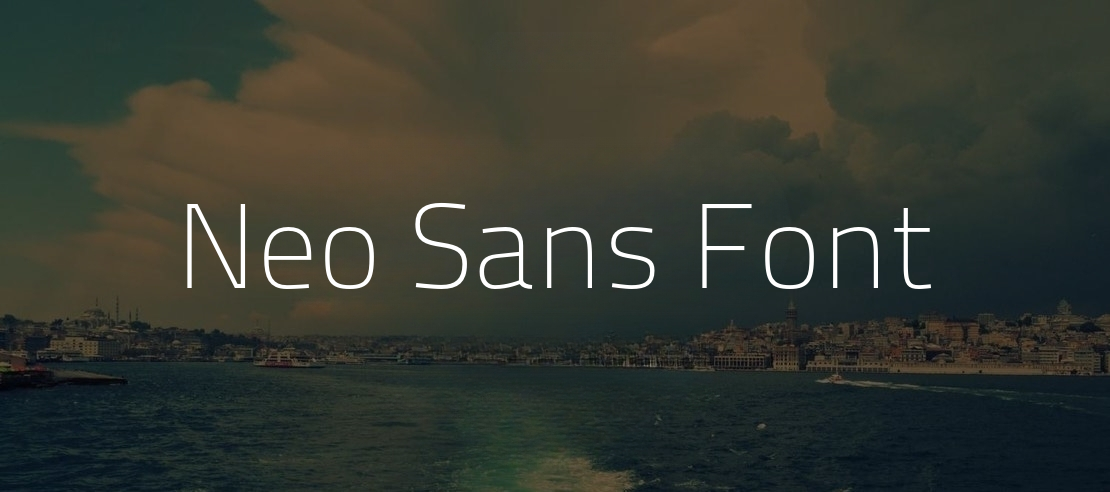
Sebastian Lester was a typeface designer who creates the Neo sans font. This font was released in 2004 by Monotype Corporation. The Neo sans family consists of 12 typefaces. This font supports up to 74 languages.
Sebastian Lester starts work on this font on a customer’s demand but after some time this project was canceled. He decided to finish the design himself.
Creator of Neo Sans Font
After a year of initial work, Lester succeeded in creating two new typefaces. This font can be used for modern typing. A new version of this font was created to use in the logo of intel corporation. A game developer company used this font in their games.
you can use this font for the logo, heading, television posters, or branding of any product. Different companies use this font in their logo.
This font comes in two different variations. These two fonts are Neo sans and Neo-Tech. These two typefaces families are available in 6 weights.
| Name | Neo Sans Font |
| Designer | Sebastian Lester |
| Foundry | Monotype Corporation |
What is Neo Sans font?
Neo sans is a member of the sans serif family. it was designed by Sebastian Lester. It contains 12 typefaces in his family.